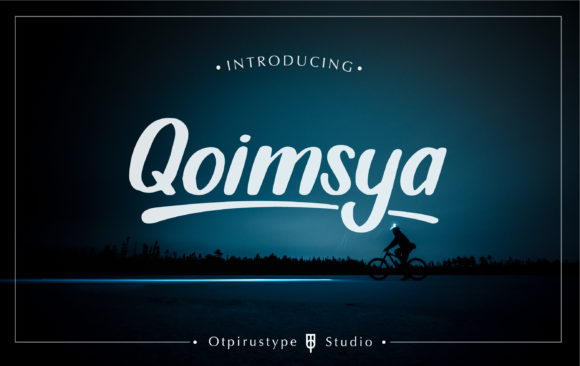
Immerse yourself in the captivating realm of Qoimsya Font, a breathtaking script typeface meticulously crafted by OtpirusThree, designed to evoke a sense of nostalgia and authenticity. Prepare to be enchanted by its seamless fusion of brush pen and pencil strokes, resulting in an endearing and genuine handwritten font that will transform your creative projects into captivating works of art.
Unleash your imagination and explore the boundless possibilities of Qoimsya Font. Its vintage charm and timeless appeal make it an ideal choice for crafting logos that exude a classic and sophisticated vibe. Whether you're designing for branding, packaging, or any other purpose, Qoimsya Font will effortlessly elevate your designs with its distinctive character and unwavering elegance.
Step into a world of endless creative opportunities with Qoimsya Font. Its versatility extends far beyond logos, making it a versatile tool for creating stunning invitations, greeting cards, posters, and social media graphics. Let your creativity flow freely as you harness the power of this remarkable font to craft designs that resonate with your audience and leave a lasting impression.
With Qoimsya Font, you're not just downloading a font; you're embarking on a creative journey filled with endless possibilities. Its ability to evoke emotions and convey messages with its unique style will captivate your audience and leave them yearning for more. Discover the transformative power of Qoimsya Font and unlock the true potential of your creative endeavors.